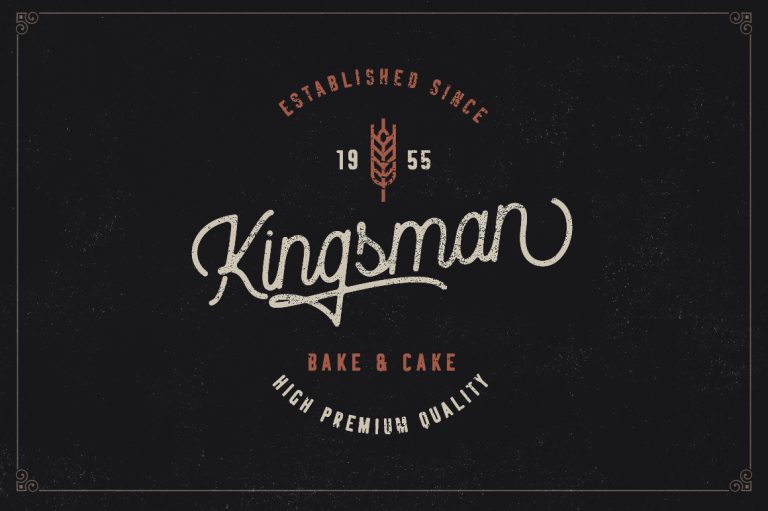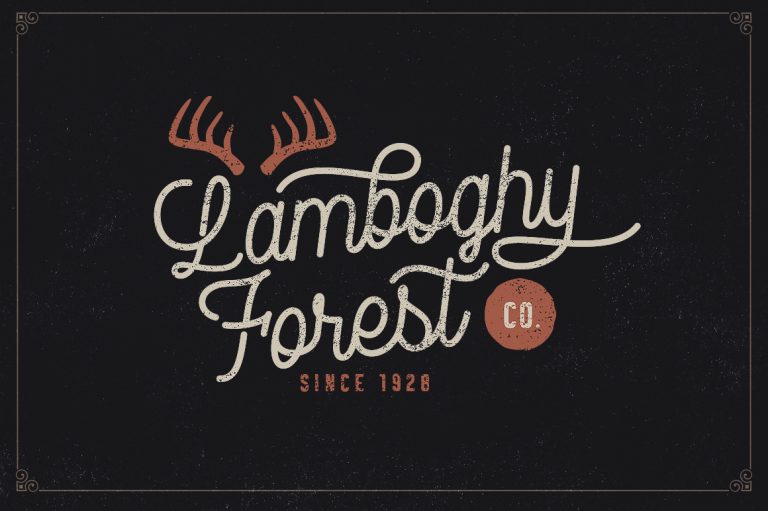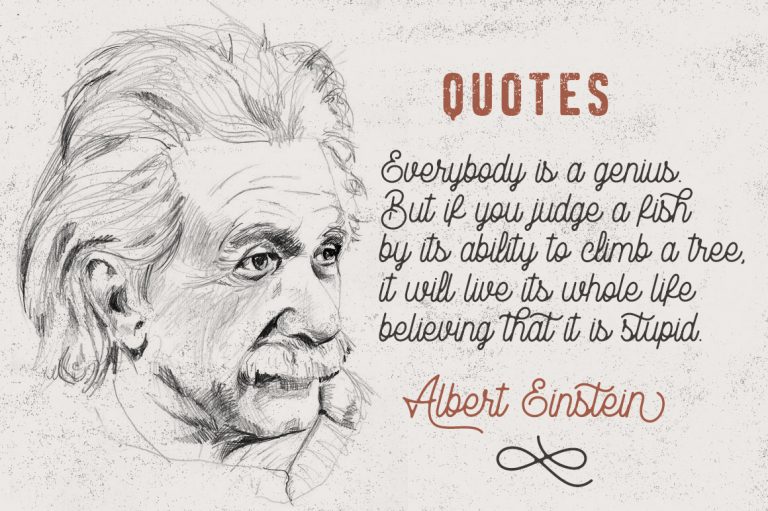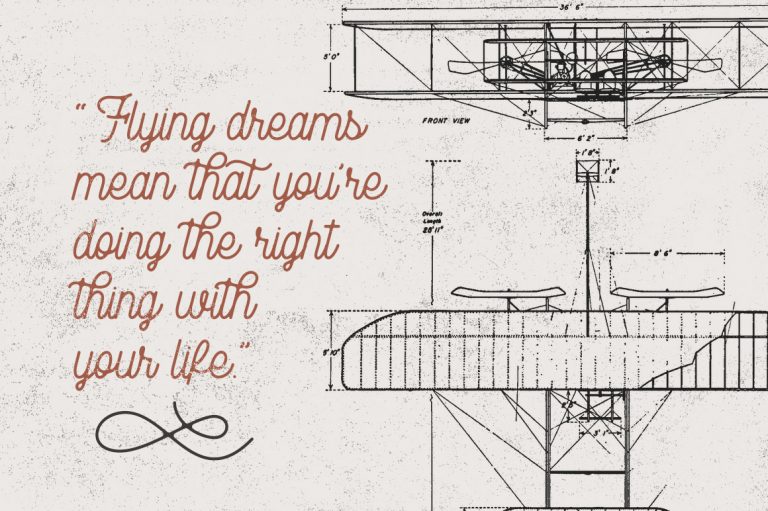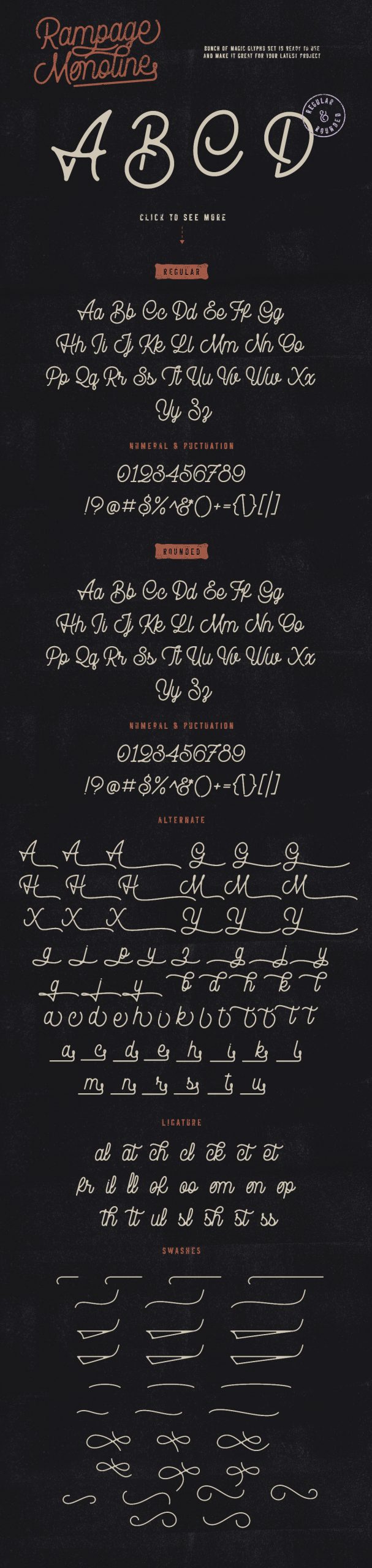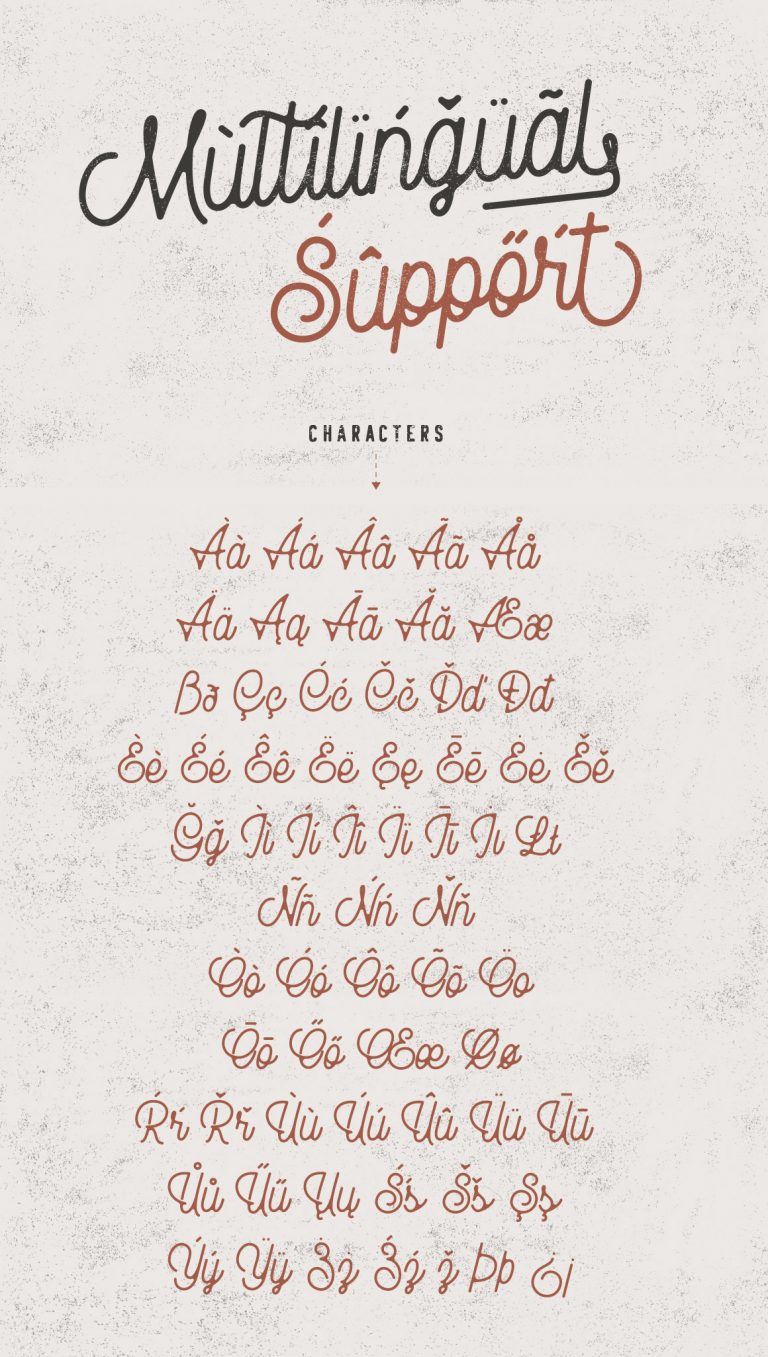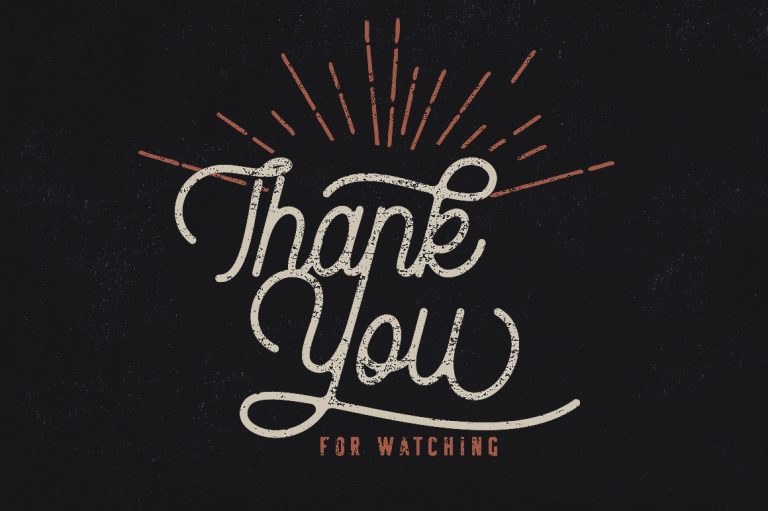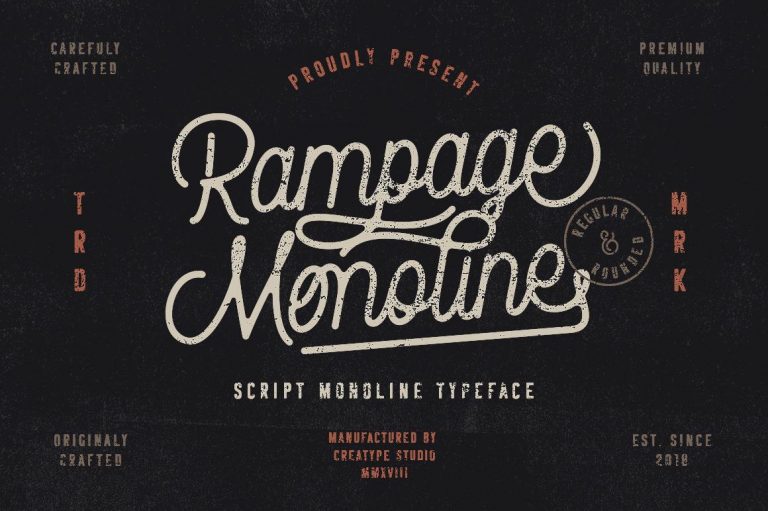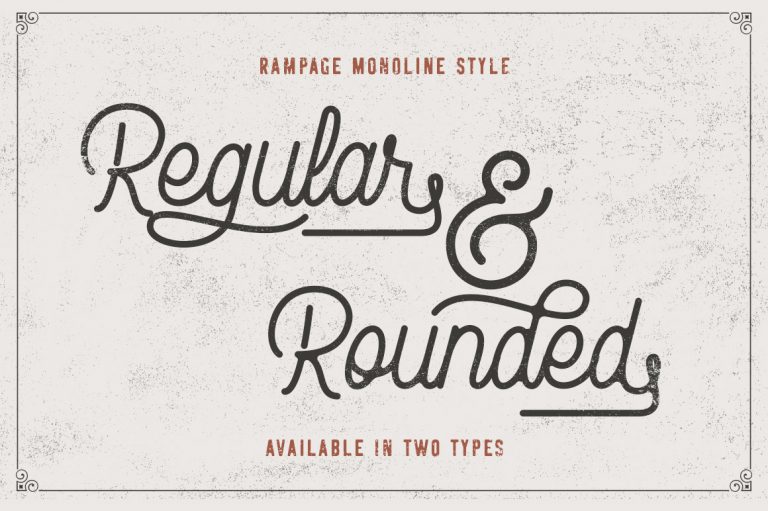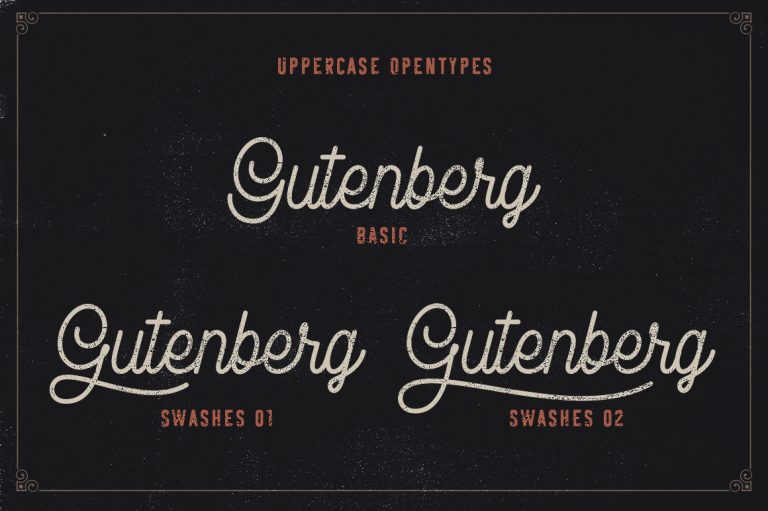
Rampage Monoline is a beautiful, sweet style, vintage monoline touch with movement and grace. The script comes in a regular and rounded version.
Rampage has an elegant and stunning as a display which makes it perfecf for branding projects, logos, wedding designs, social media posts, advertisements, product packaging, product designs, label, photography, watermark, invitation, stationery and any projects that need handwriting taste.
- More than 300 of glyphs
- Ton of glyphs (include Uppercase, Lowercase, Numerals & Punctuations, Ligature, Swashes)
- Ligature & Stylistic alternate
- Fonts include multilingual support for; Afrikaans, Albanian, Catalan, Danish, Dutch, English, French, Hungarian, Icelandic, Italian, Spanish, Portuguese, German, Swedish, Norweigen, Polish, Indonesian, Turkish, Zulu
Rampage Monoline Script